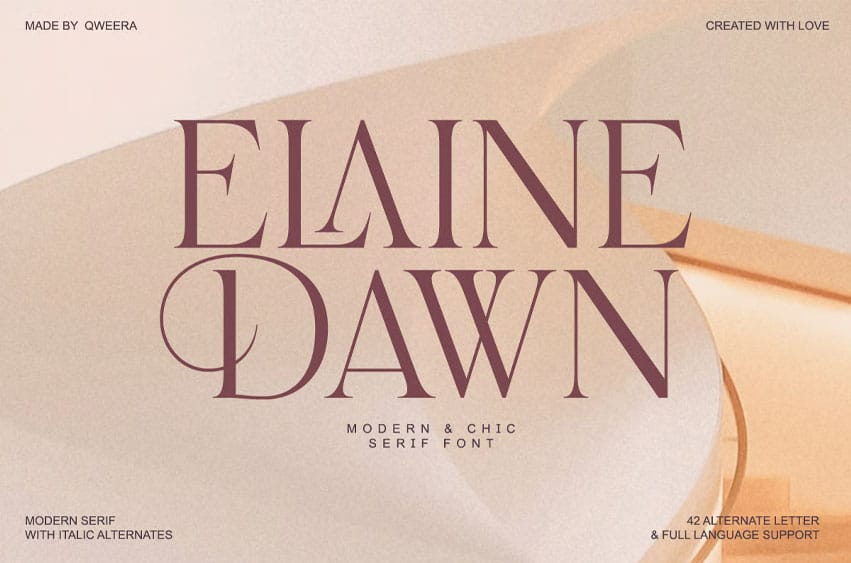
Elaine Dawn Font is a modern luxury serif with refined contrast, sculpted elegance, and timeless sophistication.
Elaine Dawn blends contemporary curves with classic structure, delivering a clean yet opulent typographic presence. Its luxurious proportions and subtle details are built for designers who demand clarity, confidence, and premium aesthetics.
Perfectly suited for high-end branding, fashion identity, and visual storytelling.
From designer logos and elegant packaging to editorial layouts and beauty campaigns, Elaine Dawn brings class and consistency into every visual composition.
Font Features
- Uppercase & lowercase characters
- Numbers & punctuation
- Alternates & signature ligatures
- Fully kerned and optimized for screen & print
- Luxury branding & fashion logos
- Editorial headlines & lookbooks
- Product packaging & cosmetics
- Wedding stationery & invitations
- Website hero titles & blog visuals
- Social media content & lifestyle graphics